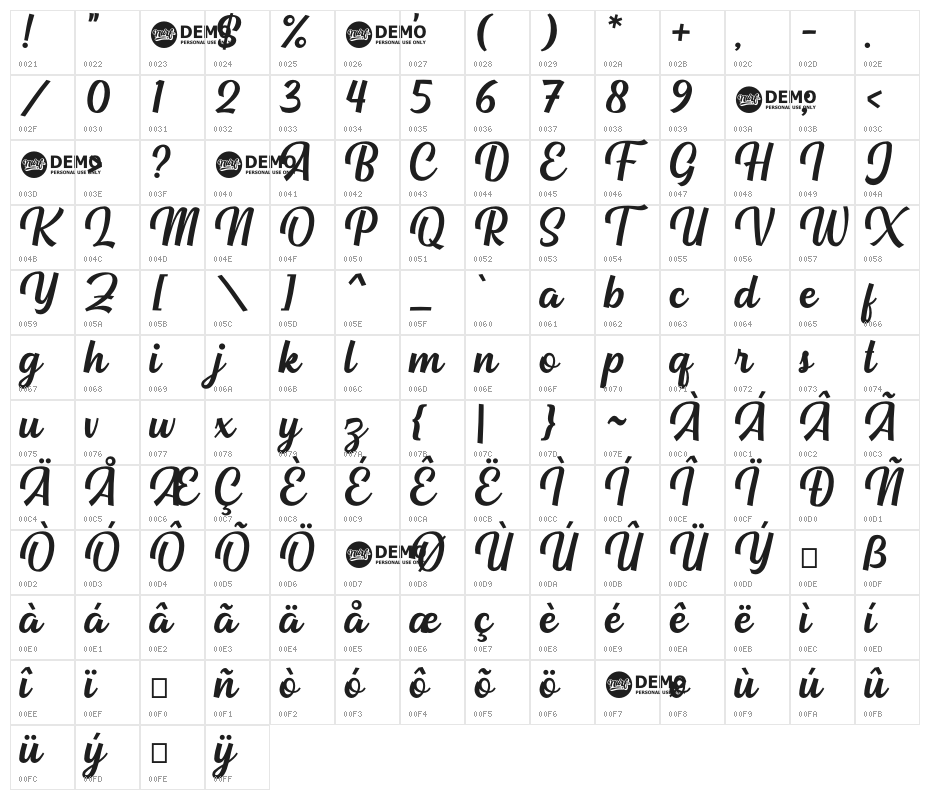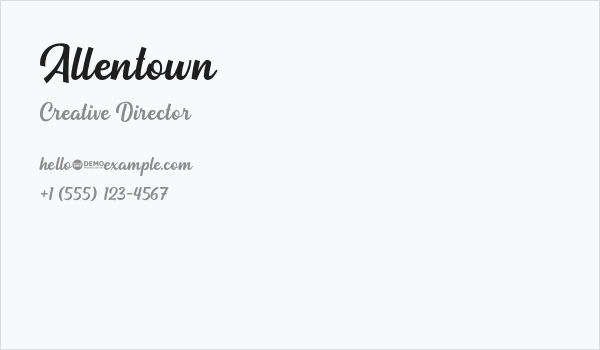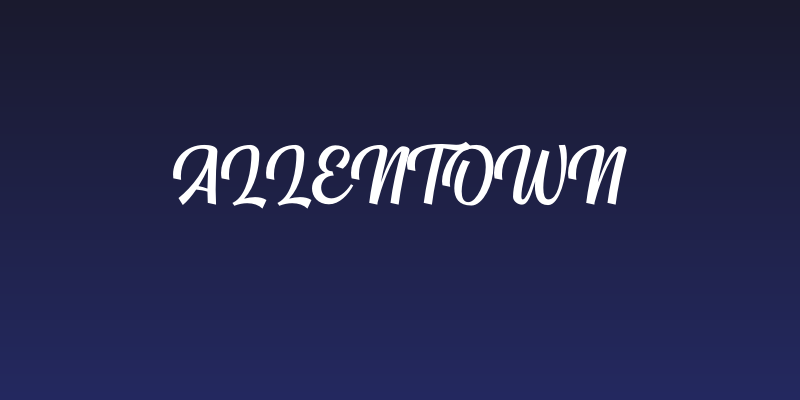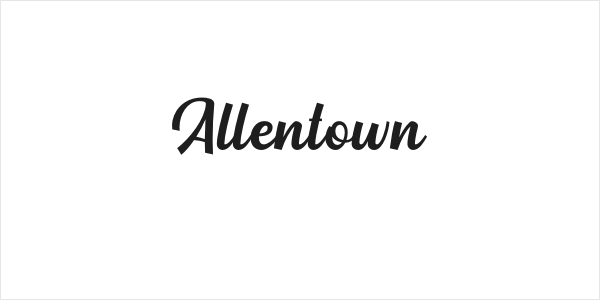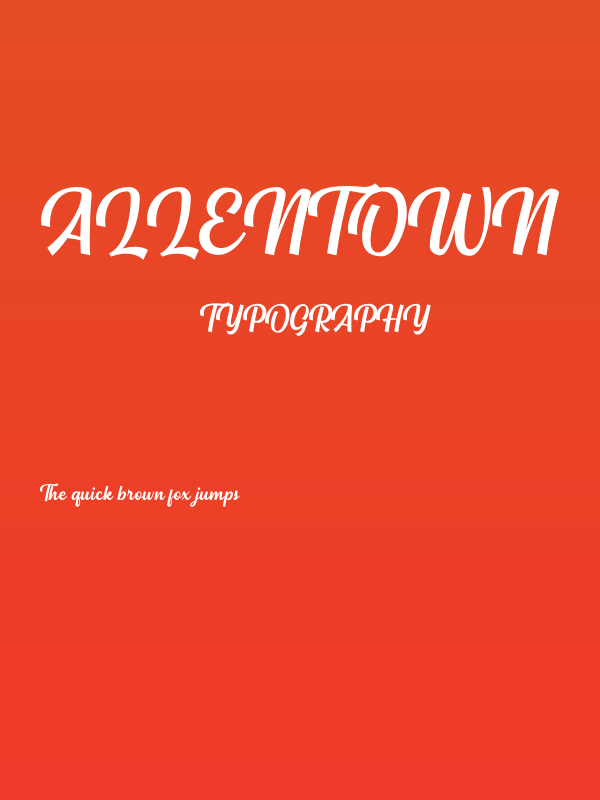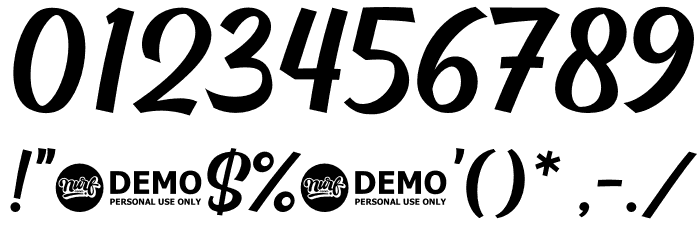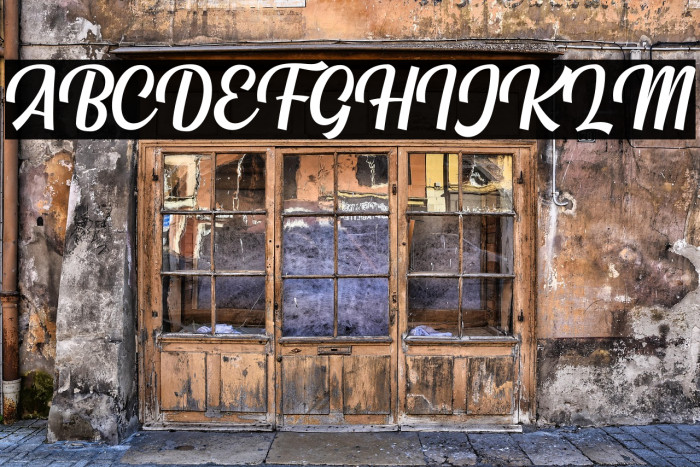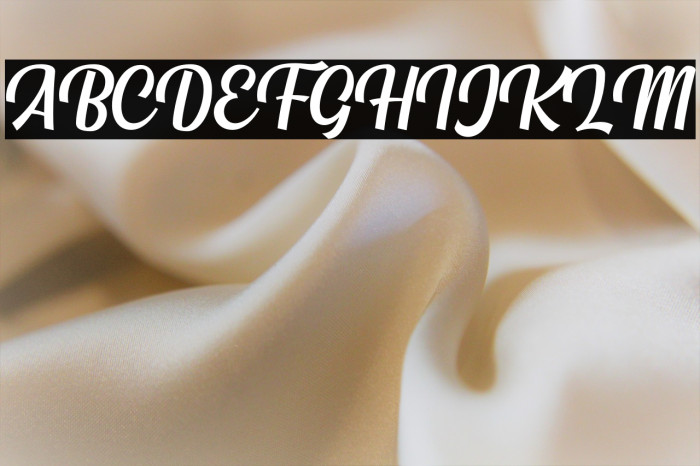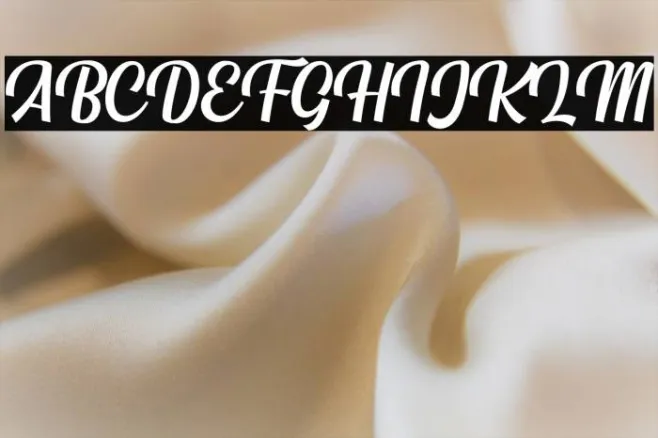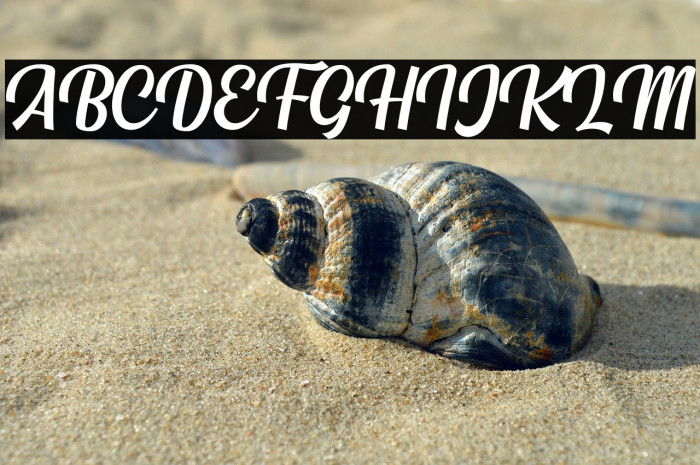
Allentown Font
Allentown Description
This font features a bold and flowing script style that exudes elegance and sophistication. The uppercase letters are slightly slanted, with smooth curves and a consistent stroke width that adds a sense of fluidity and grace. The lowercase letters maintain the same flowing style, with some characters featuring distinctive loops and flourishes that enhance the overall aesthetic. The numerals are bold and clear, ensuring readability while maintaining the font's stylish appearance. Special characters are well-integrated, matching the overall design with a touch of flair. This font is ideal for projects that require a personal touch or a sense of elegance.
| Proposed Projects | Ideal for wedding invitations, branding, logos, and elegant packaging designs. |